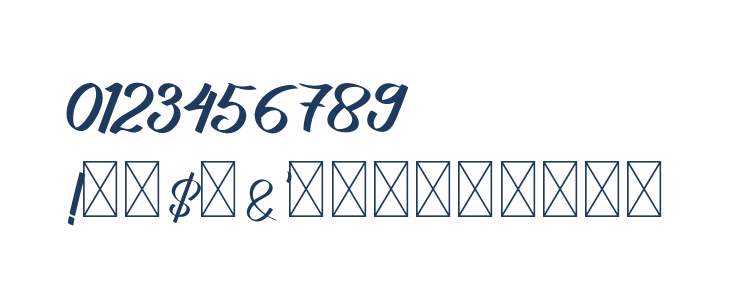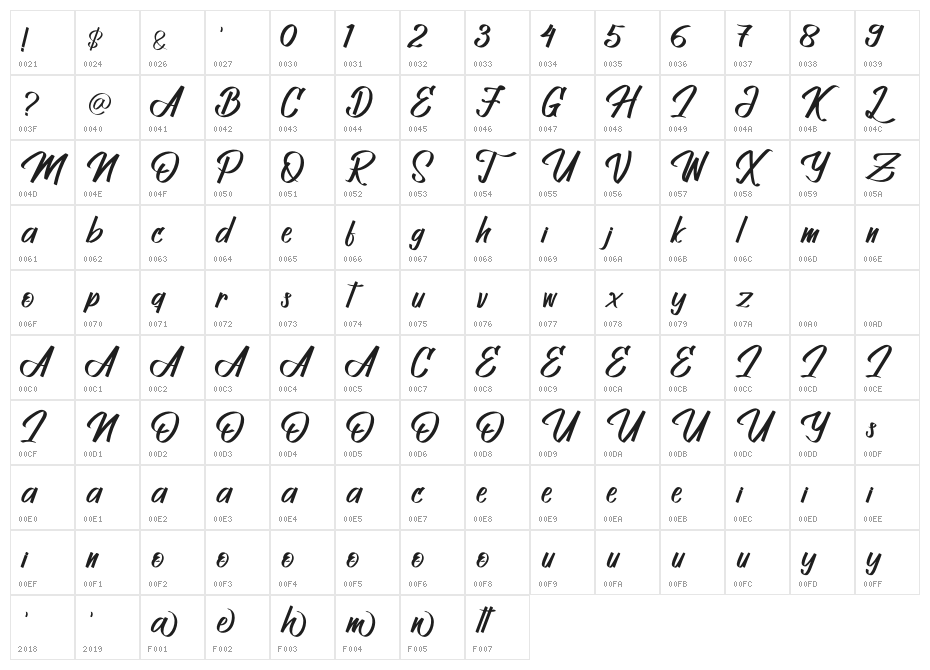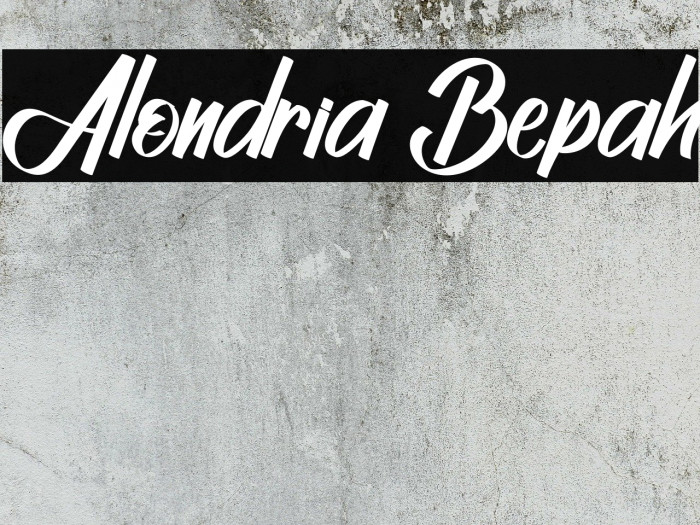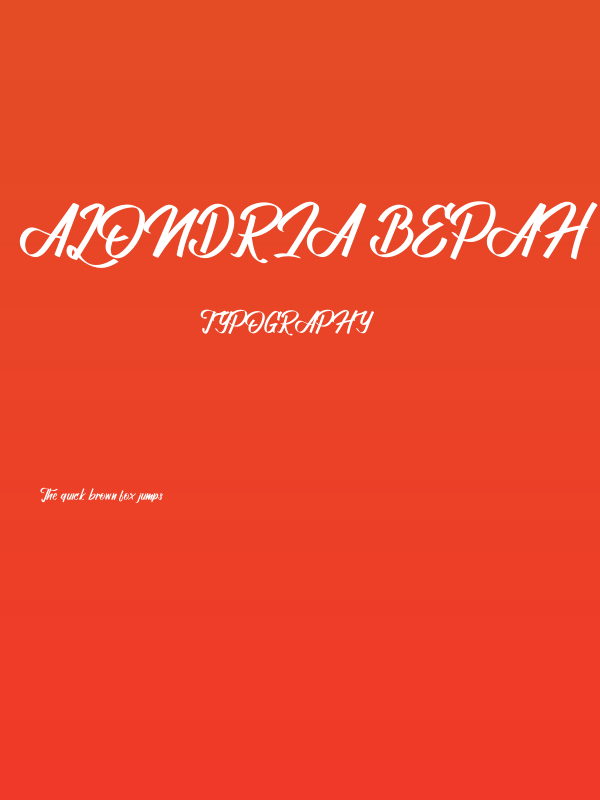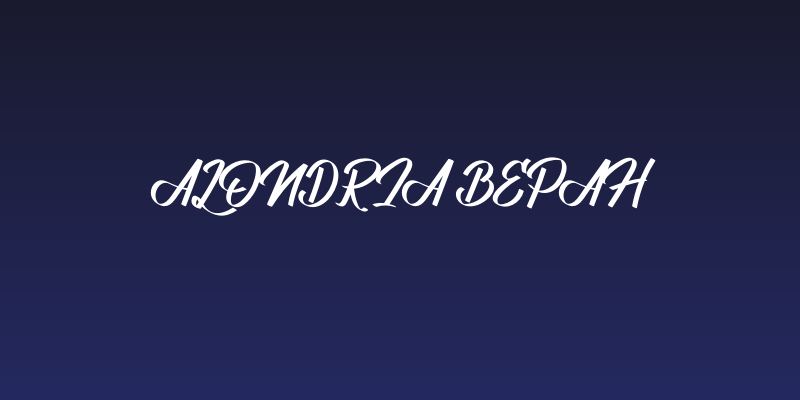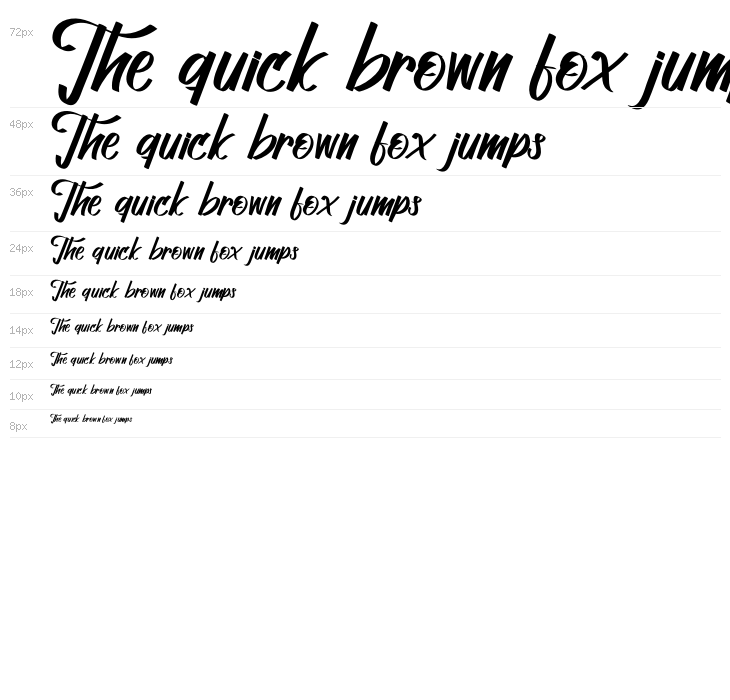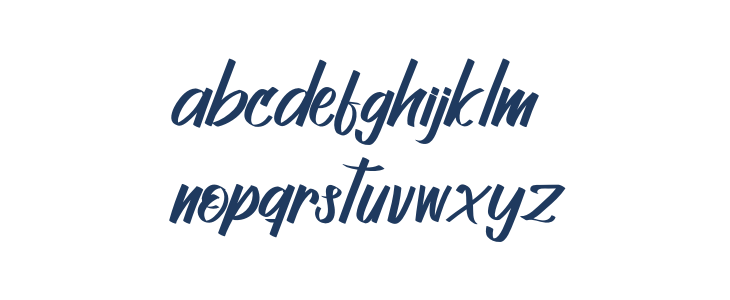
Alondria Bepah Font
Alondria Bepah Description
This font features a bold and expressive script style, characterized by its flowing, cursive letterforms. The uppercase letters exhibit a dynamic slant with elegant loops and swashes, giving a sense of movement and flair. The lowercase letters maintain a consistent style, with smooth connections and rounded forms that enhance readability. The numerals are equally stylized, maintaining the font's overall aesthetic. Special characters are designed to complement the script style, adding versatility for various design needs. The font's bold weight and high contrast between thick and thin strokes make it stand out, ideal for creating eye-catching designs.
| Proposed Projects | Ideal for branding, invitations, greeting cards, and logo design. |